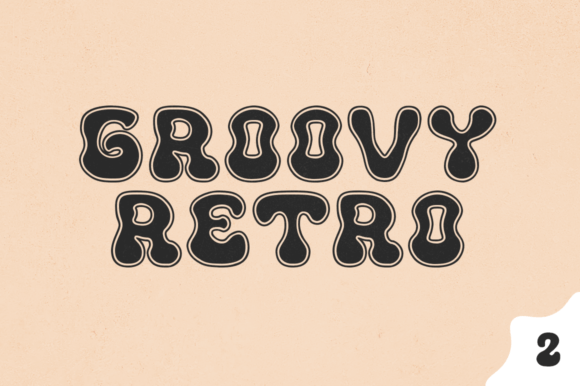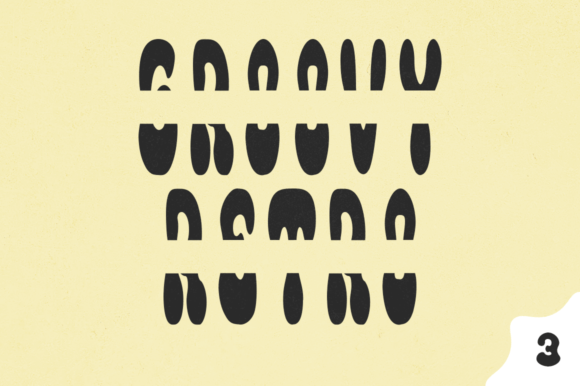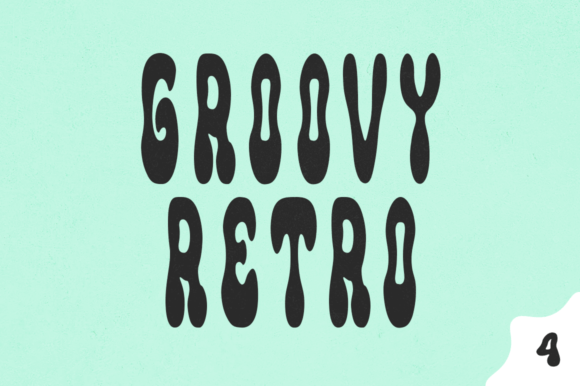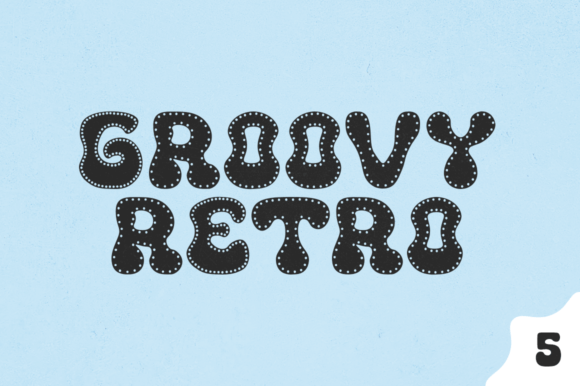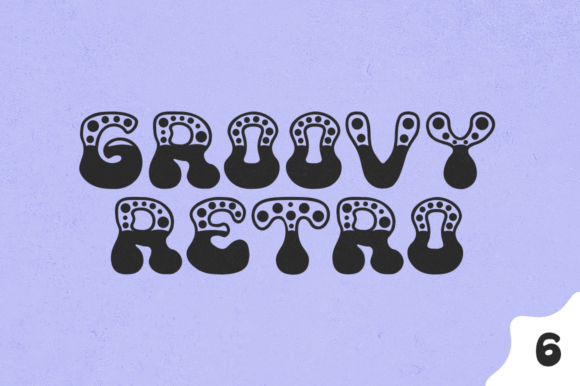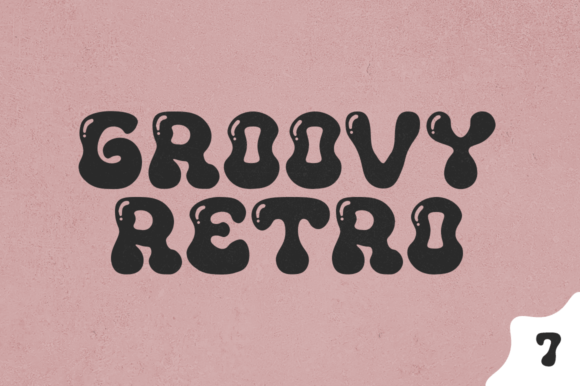
Groovy Retro Font: The Perfect Blend of Vintage and Modern
Are you looking for a font that captures the essence of the groovy 60s and 70s, but with a modern twist? Look no further than the Groovy Retro Font. This fresh vintage font is bold, playful, irregular, bubbly, and hippie, making it the perfect addition to any design project.
What Makes Groovy Retro Font So Special?
Groovy Retro Font is a unique blend of classic and contemporary design elements. Its bold and playful style is reminiscent of the psychedelic posters and funky typography of the 1960s and 1970s, but with a modern touch that makes it perfect for today’s design needs.
This font is not just a pretty face – it’s also highly versatile. Whether you’re looking to create a logo, crafting project, wedding invitation, branding materials, stickers, sublimation designs, or anything else, Groovy Retro Font is the perfect choice.
Key Features of Groovy Retro Font
- Bold and Playful Style: Groovy Retro Font is designed to make a statement. Its bold and playful style is sure to grab attention and add a touch of fun to any design.
- Irregular and Bubbly Texture: The font’s irregular and bubbly texture gives it a unique, hand-drawn feel that’s perfect for adding a touch of personality to your designs.
- Hippie Vibes: Groovy Retro Font is all about embracing the free-spirited, hippie vibe of the 1960s and 1970s. It’s perfect for designers who want to add a touch of nostalgia and whimsy to their work.
- Modern Touch: While Groovy Retro Font is inspired by vintage design, it also has a distinctly modern feel. This makes it perfect for designers who want to create something that’s both retro and contemporary.
Uses for Groovy Retro Font
So, what can you use Groovy Retro Font for? The possibilities are endless! Here are a few ideas to get you started:
- Logo Design: Create a bold and eye-catching logo that showcases your brand’s personality.
- Crafting Projects: Add a touch of whimsy and fun to your crafting projects, such as scrapbooking, card making, and DIY gifts.
- Wedding Invitations: Create unique and memorable wedding invitations that set the tone for a fun and playful celebration.
- Branding Materials: Use Groovy Retro Font to create branding materials that stand out from the crowd, such as business cards, brochures, and flyers.
- Stickers and Sublimation Designs: Create fun and colorful stickers and sublimation designs that are perfect for laptops, water bottles, and other products.
Why Choose Groovy Retro Font?
So, why should you choose Groovy Retro Font for your next design project? Here are just a few reasons:
- Unique Style: Groovy Retro Font has a unique and distinctive style that’s sure to set your designs apart.
- Highly Versatile: This font can be used for a wide range of design projects, from logos and branding materials to crafting and sublimation designs.
- Modern and Retro: This font combines the best of both worlds – a modern touch with a retro vibe.
In conclusion, Groovy Retro Font is a fresh and exciting font that’s perfect for designers who want to add a touch of vintage whimsy to their work. With its bold and playful style, irregular and bubbly texture, and hippie vibes, this font is sure to grab attention and inspire creativity.